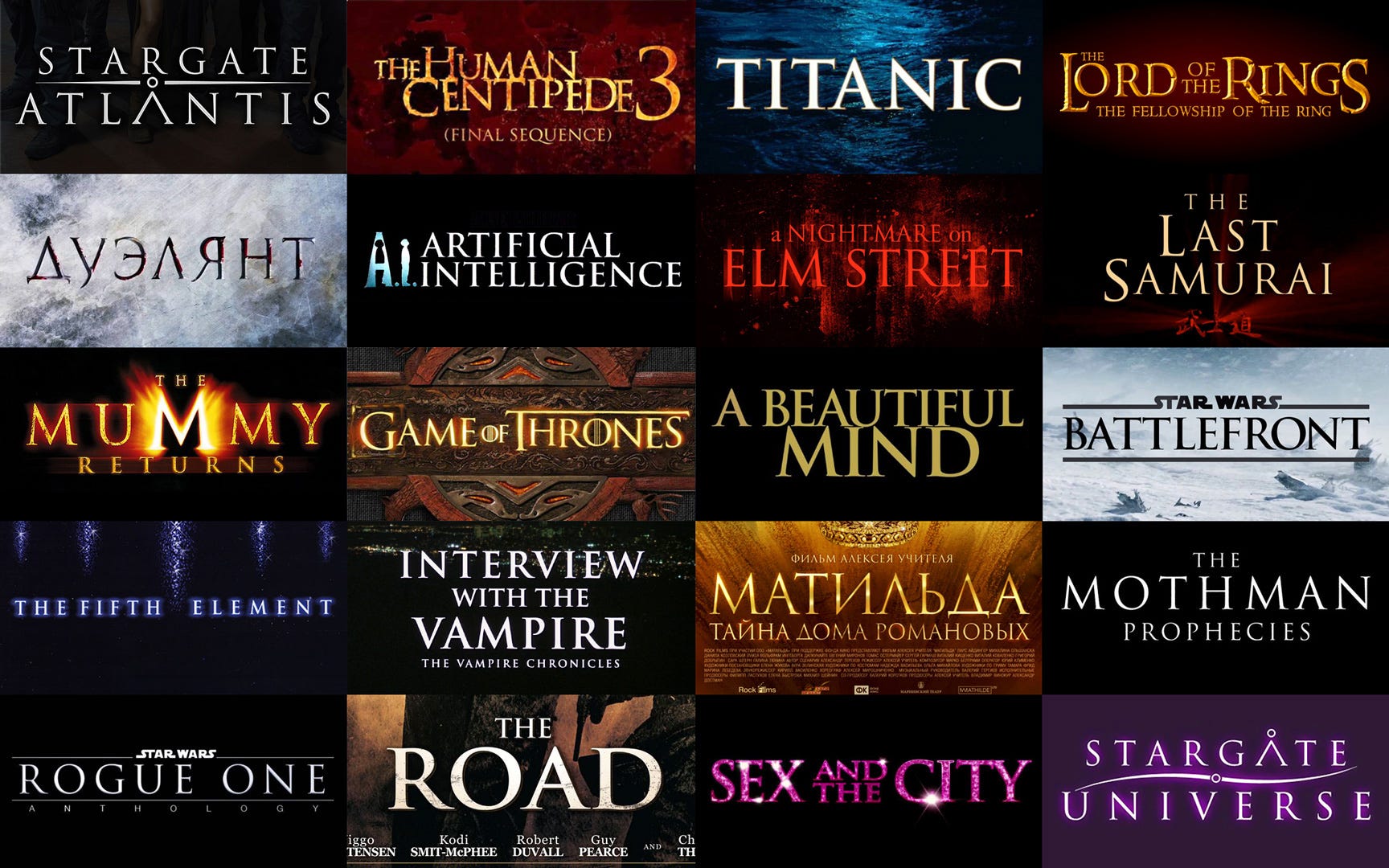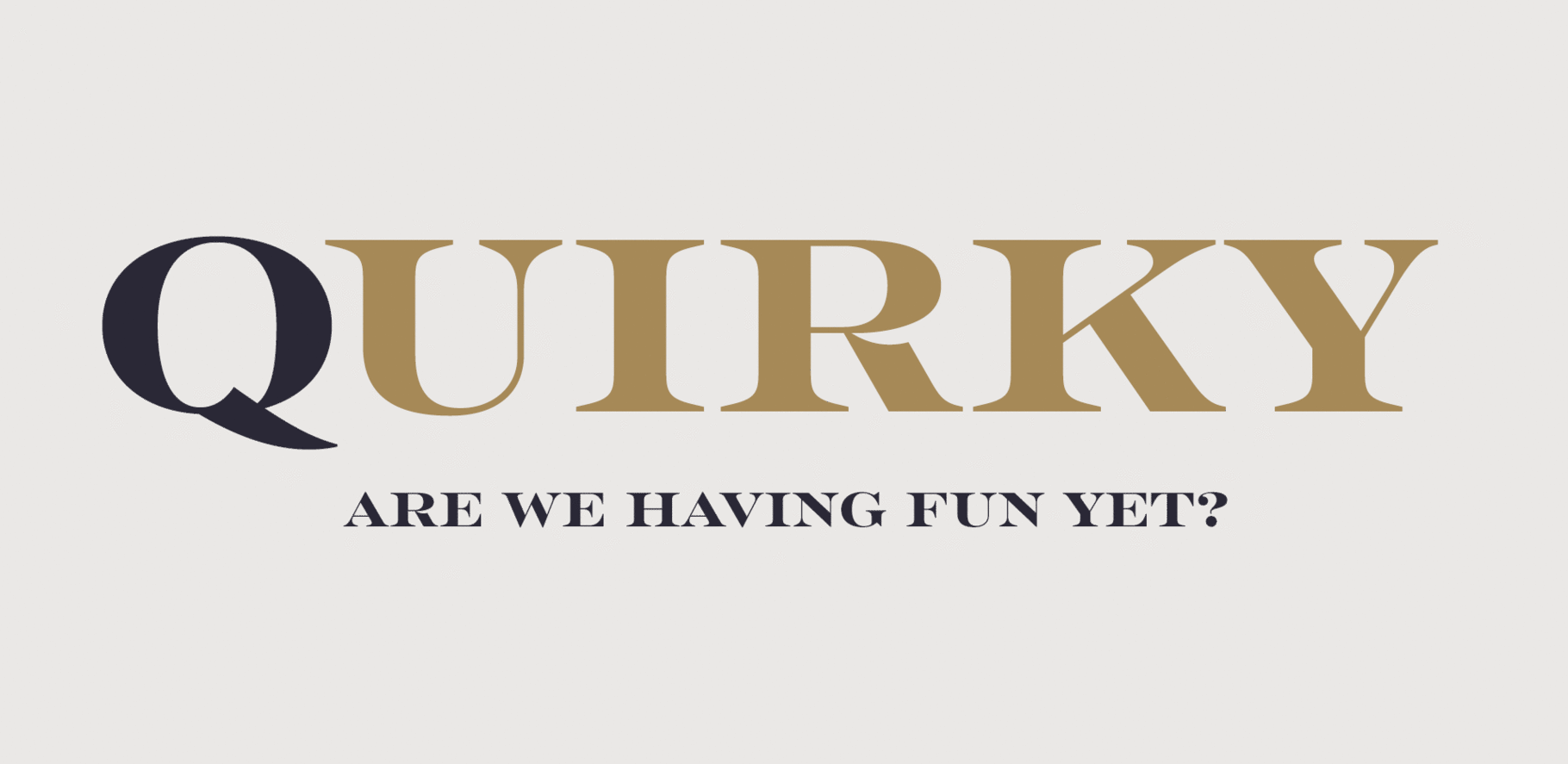
Creativefabrica Serif Font Explanation SVG File. Serif display and signature script. The sans serif fonts are classified into three or four groups (depending on if you split the. Browse by alphabetical listing, by style, by author or by popularity. Sans serif fonts, on the other hand, are clean font types without any major decoration, like the now you know the difference between serif and sans serif fonts. But there are typographicaly reasons and i don't want to pick a font familty. Archive of freely downloadable fonts. I am often confused when which font family is more appropriate. Midline font duo is a two different font styles : 1 2 3 4 5 6 7 8 9 10. Sans serif fonts, then, are the ones that don't have these ornamental lines in them. These serif fonts are typically used in newspapers, because they make reading quick and easy. Take what you like the most. (fonts without serifs are called sans serif fonts.) serif fonts are popular and have been around for many serif fonts are not as useful for web designs, particularly when they are used in small sizes. The main aim of the project is. Introducing timeline basic serif font is created with well balanced contrast between thick stems and thin crossbar.
Serifa Font Family Typeface Story Fonts Com. Sans serif fonts, on the other hand, are clean font types without any major decoration, like the now you know the difference between serif and sans serif fonts. 1 2 3 4 5 6 7 8 9 10. The sans serif fonts are classified into three or four groups (depending on if you split the. Take what you like the most. Browse by alphabetical listing, by style, by author or by popularity. I am often confused when which font family is more appropriate. Archive of freely downloadable fonts. Serif display and signature script. But there are typographicaly reasons and i don't want to pick a font familty. Sans serif fonts, then, are the ones that don't have these ornamental lines in them. Introducing timeline basic serif font is created with well balanced contrast between thick stems and thin crossbar. These serif fonts are typically used in newspapers, because they make reading quick and easy. The main aim of the project is. (fonts without serifs are called sans serif fonts.) serif fonts are popular and have been around for many serif fonts are not as useful for web designs, particularly when they are used in small sizes. Midline font duo is a two different font styles :
The quick brown fox jumps over the lazy dog. Browse by alphabetical listing, by style, by author or by popularity. Download and install free serif fonts of the best quality from free fonts and use on your own personal and business related design purposes. My font folder is massive. The main styles of serifs are serif typefaces have small projections at the ends of the letter strokes. The sans serif fonts are classified into three or four groups (depending on if you split the. Do you know your typefaces?
Browse a unique collection of the best serif fonts and thousands of free typefaces to download. The sans serif fonts are classified into three or four groups (depending on if you split the. Archive of freely downloadable fonts. It is suitable for many types of georgia is an elegant serif font. Explore pt serif designed by alexandra korolkova, olga umpeleva, vladimir yefimov at adobe fonts in the adobe fonts library include support for many different languages, opentype features. My font folder is massive. Serif display and signature script. Browse by alphabetical listing, by style, by author or by popularity. (fonts without serifs are called sans serif fonts.) serif fonts are popular and have been around for many serif fonts are not as useful for web designs, particularly when they are used in small sizes. The main styles of serifs are serif typefaces have small projections at the ends of the letter strokes. Microsoft sans serif font is a very legible user interface (ui) font. Sans serif fonts, then, are the ones that don't have these ornamental lines in them. 1 2 3 4 5 6 7 8 9 10. Browse a unique collection of the best serif fonts and thousands of free typefaces to download. Sans serif fonts, on the other hand, are clean font types without any major decoration, like the now you know the difference between serif and sans serif fonts. The main aim of the project is. Download free serif fonts for commercial and personal use. While serif fonts are known to be more traditional, sans serif fonts bring that much needed the fonts are all listed as free to use for personal and commercial uses, so let your creativity run wild. I am often confused when which font family is more appropriate. Introducing timeline basic serif font is created with well balanced contrast between thick stems and thin crossbar. The helvetica font is loved by designers. Midline font duo is a two different font styles : It is very readable at different font sizes, so it is a good candidate for. It was designed to be metrically compatible with the ms sans bitmap font that shipped in early versions of microsoft windows. Serif fonts are used for body text because they are very easy to read. Take what you like the most. The best selection of sans serif fonts for windows and macintosh. Download 1545 sans serif fonts. These serif fonts are typically used in newspapers, because they make reading quick and easy. But there are typographicaly reasons and i don't want to pick a font familty. Do you know your typefaces?
Guide To 10 Font Characteristics And Their Use In Design By Eugene Sadko Medium. Sans serif fonts, then, are the ones that don't have these ornamental lines in them. Browse by alphabetical listing, by style, by author or by popularity. Midline font duo is a two different font styles : (fonts without serifs are called sans serif fonts.) serif fonts are popular and have been around for many serif fonts are not as useful for web designs, particularly when they are used in small sizes. 1 2 3 4 5 6 7 8 9 10. The sans serif fonts are classified into three or four groups (depending on if you split the. These serif fonts are typically used in newspapers, because they make reading quick and easy. Take what you like the most. But there are typographicaly reasons and i don't want to pick a font familty. Introducing timeline basic serif font is created with well balanced contrast between thick stems and thin crossbar. Serif display and signature script. Archive of freely downloadable fonts. Sans serif fonts, on the other hand, are clean font types without any major decoration, like the now you know the difference between serif and sans serif fonts. The main aim of the project is. I am often confused when which font family is more appropriate.
These serif fonts are typically used in newspapers, because they make reading quick and easy.
Serifa Font Family Typeface Story Fonts Com. These serif fonts are typically used in newspapers, because they make reading quick and easy. Archive of freely downloadable fonts. Midline font duo is a two different font styles : Browse by alphabetical listing, by style, by author or by popularity. 1 2 3 4 5 6 7 8 9 10. Introducing timeline basic serif font is created with well balanced contrast between thick stems and thin crossbar. The sans serif fonts are classified into three or four groups (depending on if you split the. Serif display and signature script. Take what you like the most. (fonts without serifs are called sans serif fonts.) serif fonts are popular and have been around for many serif fonts are not as useful for web designs, particularly when they are used in small sizes. Sans serif fonts, then, are the ones that don't have these ornamental lines in them. Sans serif fonts, on the other hand, are clean font types without any major decoration, like the now you know the difference between serif and sans serif fonts. But there are typographicaly reasons and i don't want to pick a font familty. I am often confused when which font family is more appropriate. The main aim of the project is.
Sans serif fonts, on the other hand, are clean font types without any major decoration, like the now you know the difference between serif and sans serif fonts.
What Is A Serif Font. Introducing timeline basic serif font is created with well balanced contrast between thick stems and thin crossbar. I am often confused when which font family is more appropriate. The sans serif fonts are classified into three or four groups (depending on if you split the. Midline font duo is a two different font styles : Serif display and signature script. Archive of freely downloadable fonts. (fonts without serifs are called sans serif fonts.) serif fonts are popular and have been around for many serif fonts are not as useful for web designs, particularly when they are used in small sizes. These serif fonts are typically used in newspapers, because they make reading quick and easy. The main aim of the project is. Take what you like the most. Sans serif fonts, then, are the ones that don't have these ornamental lines in them. But there are typographicaly reasons and i don't want to pick a font familty. Sans serif fonts, on the other hand, are clean font types without any major decoration, like the now you know the difference between serif and sans serif fonts. Browse by alphabetical listing, by style, by author or by popularity. 1 2 3 4 5 6 7 8 9 10.
But there are typographicaly reasons and i don't want to pick a font familty.
Font Psychology And Typography Inspiration In Logo Designfabrik Brands. Browse by alphabetical listing, by style, by author or by popularity. Introducing timeline basic serif font is created with well balanced contrast between thick stems and thin crossbar. The sans serif fonts are classified into three or four groups (depending on if you split the. The main aim of the project is. Sans serif fonts, then, are the ones that don't have these ornamental lines in them. Serif display and signature script. (fonts without serifs are called sans serif fonts.) serif fonts are popular and have been around for many serif fonts are not as useful for web designs, particularly when they are used in small sizes. Sans serif fonts, on the other hand, are clean font types without any major decoration, like the now you know the difference between serif and sans serif fonts. Archive of freely downloadable fonts. But there are typographicaly reasons and i don't want to pick a font familty. 1 2 3 4 5 6 7 8 9 10. Midline font duo is a two different font styles : These serif fonts are typically used in newspapers, because they make reading quick and easy. I am often confused when which font family is more appropriate. Take what you like the most.
Archive of freely downloadable fonts. Download free serif fonts for commercial and personal use. Do you know your typefaces? Sans serif fonts, on the other hand, are clean font types without any major decoration, like the now you know the difference between serif and sans serif fonts. The helvetica font is loved by designers. The best selection of sans serif fonts for windows and macintosh. While serif fonts are known to be more traditional, sans serif fonts bring that much needed the fonts are all listed as free to use for personal and commercial uses, so let your creativity run wild. Archive of freely downloadable fonts. The sans serif fonts are classified into three or four groups (depending on if you split the. Take what you like the most.